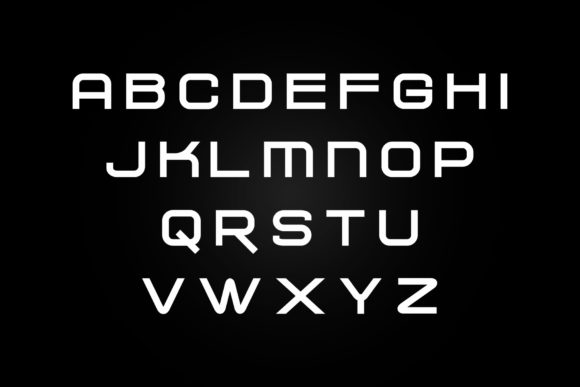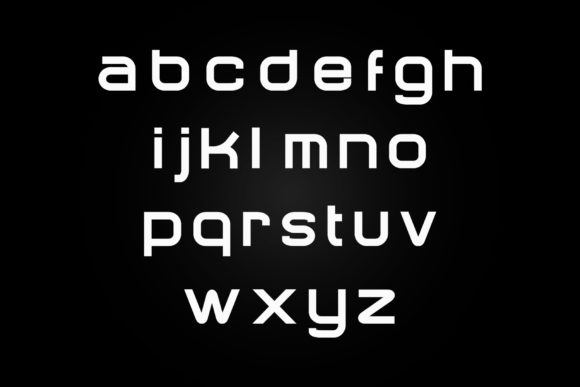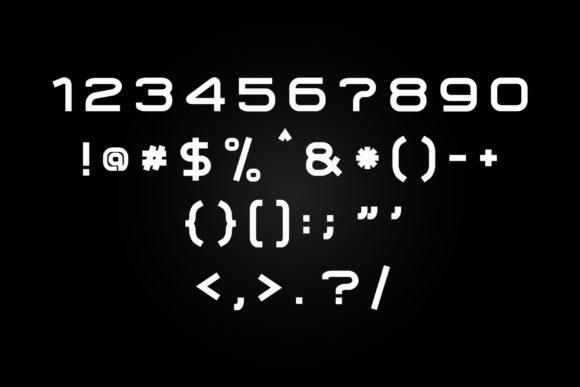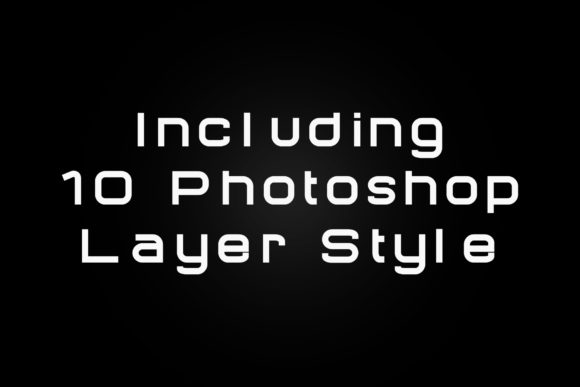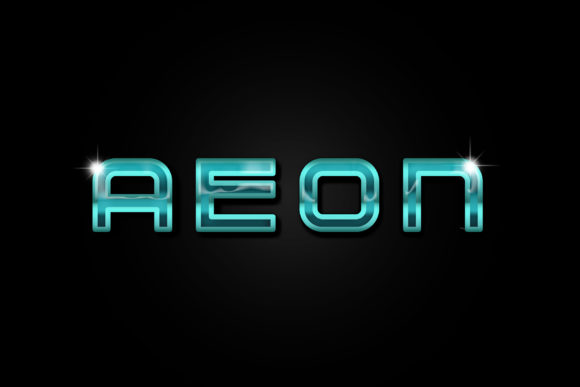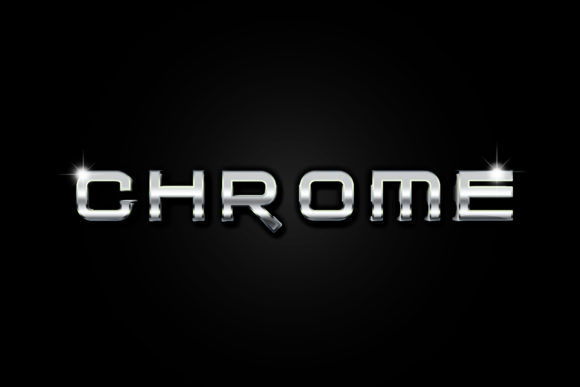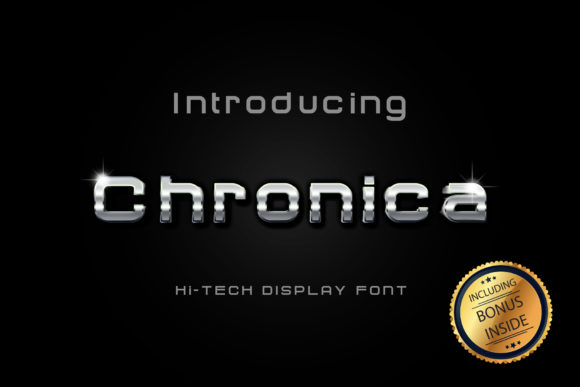
Introducing Chronica Font: Elevate Your Design with Sophistication
In the world of typography, fonts play a crucial role in conveying messages, evoking emotions, and creating lasting impressions. For designers, crafters, and anyone looking to elevate their visual content, the Chronica font is a game-changer. This sophisticated sans serif font is designed to make your projects stand out, whether it’s for web, print, moving images, or any other medium.
What Makes Chronica Font Stand Out?
Chronica is not just another font; it’s a design statement. Its clean, sans serif lines exude modernity and elegance, making it perfect for a wide range of applications. Here are some key features that set Chronica apart:
- Versatility: Chronica is designed to be versatile. It can be used in various contexts, from digital platforms like websites and social media to print materials such as brochures, posters, and business cards.
- Legibility: The font boasts excellent legibility, ensuring that your message is conveyed clearly and effectively, regardless of the medium.
- Elegance: Chronica adds a touch of sophistication to any design. Its sleek lines and balanced proportions make it ideal for projects that require a professional look.
- Expressiveness: Despite its simplicity, Chronica offers a range of weights and styles, allowing designers to experiment with different expressions and moods.
Applications of Chronica Font
The versatility of Chronica makes it suitable for a myriad of design projects. Here are some of the areas where Chronica truly shines:
- Web Design: In the digital realm, first impressions are crucial. Chronica can help you create stunning websites that are not only visually appealing but also highly readable across various devices.
- Print Design: For print materials, Chronica offers a fresh and modern look. It’s perfect for magazines, newspapers, flyers, and any other print media that requires a clean and professional appearance.
- Branding and Advertising: Establishing a strong brand identity is essential for businesses. Chronica can be used to create logos, advertisements, and promotional materials that reflect a brand’s values and aesthetic.
- Motion Graphics: In the world of moving images, such as video content and animations, Chronica’s clarity and elegance can enhance the visual experience, making your content more engaging.
Tips for Using Chronica Font Effectively
To make the most out of Chronica, consider the following tips:
- Pair it with Complementary Fonts: While Chronica is stunning on its own, pairing it with complementary fonts can add depth and interest to your designs.
- Experiment with Weights: Don’t be afraid to experiment with different weights of Chronica to create visual hierarchy and emphasize key points.
- Consider Color: The right color scheme can enhance the impact of Chronica. Choose colors that align with your brand or design theme.
Chronica font is a powerful tool for designers and crafters looking to elevate their projects. Its sophistication, versatility, and elegance make it an excellent choice for a wide range of applications. By incorporating Chronica into your design arsenal, you can create visually stunning and effective content that leaves a lasting impression.
Whether you’re working on a website, a print project, or any other form of visual content, Chronica is sure to bring a level of sophistication and professionalism that sets your work apart. So, why settle for ordinary when you can create something spectacular with Chronica font?